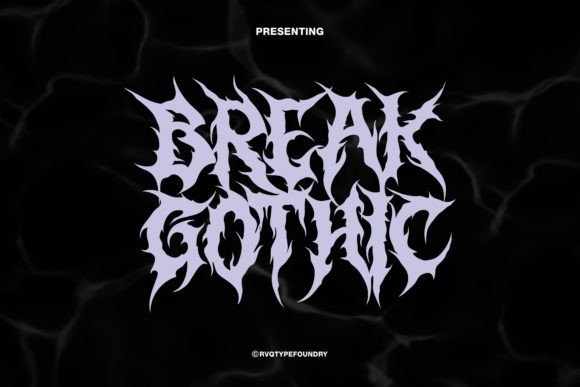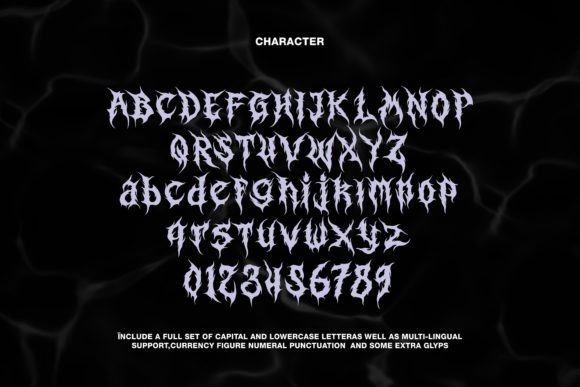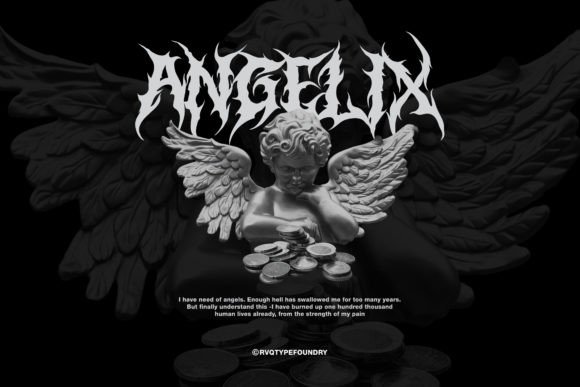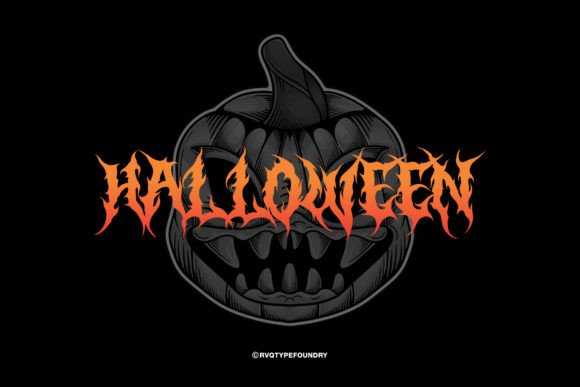
Break Gothic Font
About the Break Gothic Font
The wait is over! The incredible Break Gothic Font is now available for your design toolkit. Break Gothic is a cool and edgy display font inspired by the brutal aesthetics of death-metal culture. Its sharp, angular letterforms and bold strokes exude power and intensity, making it perfect for creating impactful headlines, album covers, and posters. Whether you’re unleashing your inner rocker or exploring dark themes, Break Gothic commands attention with its raw and rebellious style.
Break Gothic thrives in large sizes, ideal for headlines, posters, and branding applications requiring a strong visual impact. Its aggressive forms are less suitable for body text or UI elements where readability is paramount; long passages set in this font would be difficult to read.
The font’s rebellious personality pairs well with clean sans-serif fonts like Futura or Helvetica for contrast, creating a balance between raw energy and refined structure. Alternatively, a classic serif like Garamond or a more geometric sans-serif such as Roboto can offer a sophisticated counterpoint.
Consider Break Gothic for brands emphasizing power, rebellion, or a dark aesthetic. Music, gaming, and streetwear projects would particularly benefit from its intense character. Avoid using it for applications requiring elegance or subtlety.
Break Gothic Font Usage Examples
Break Gothic Font Example